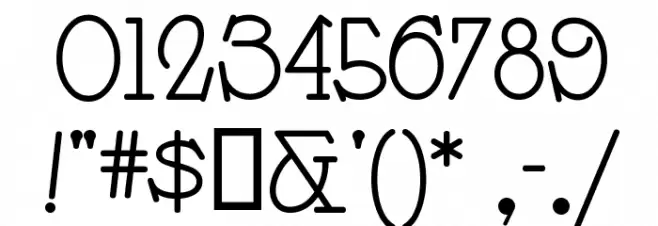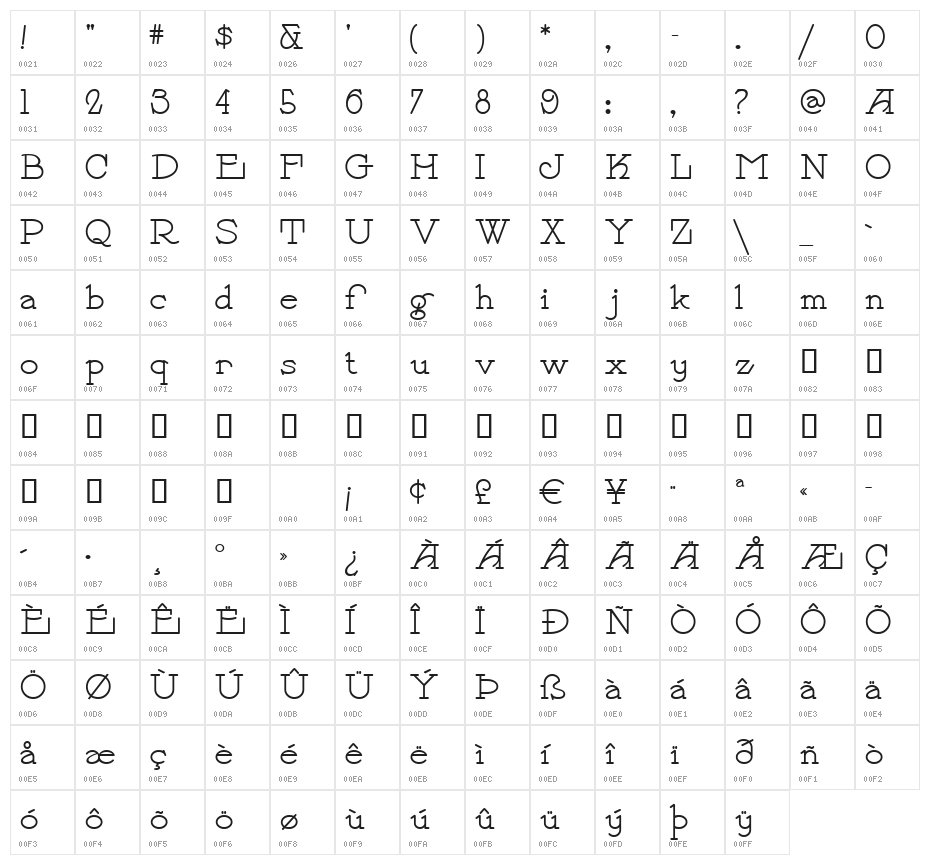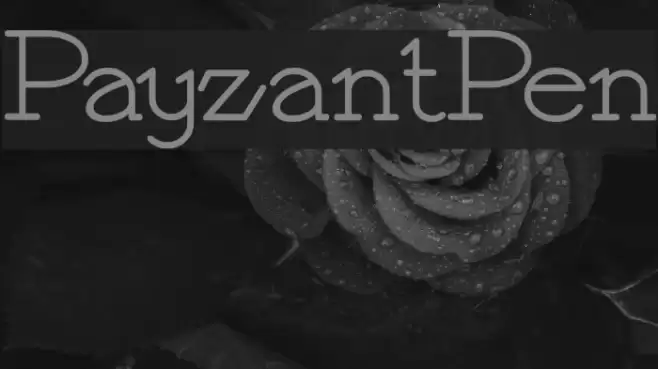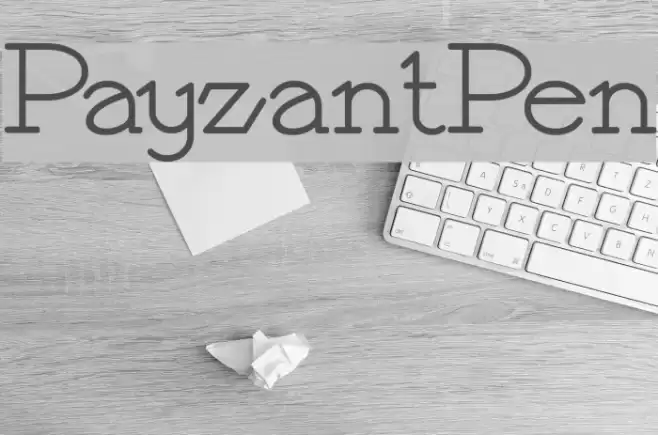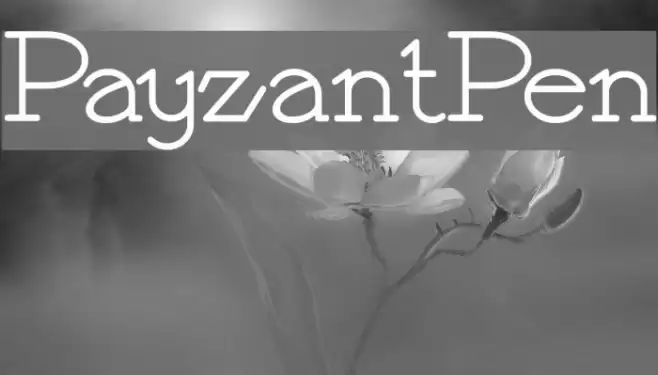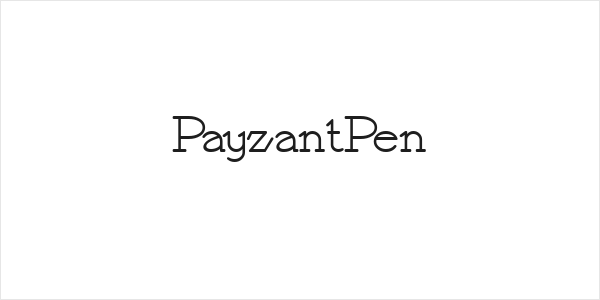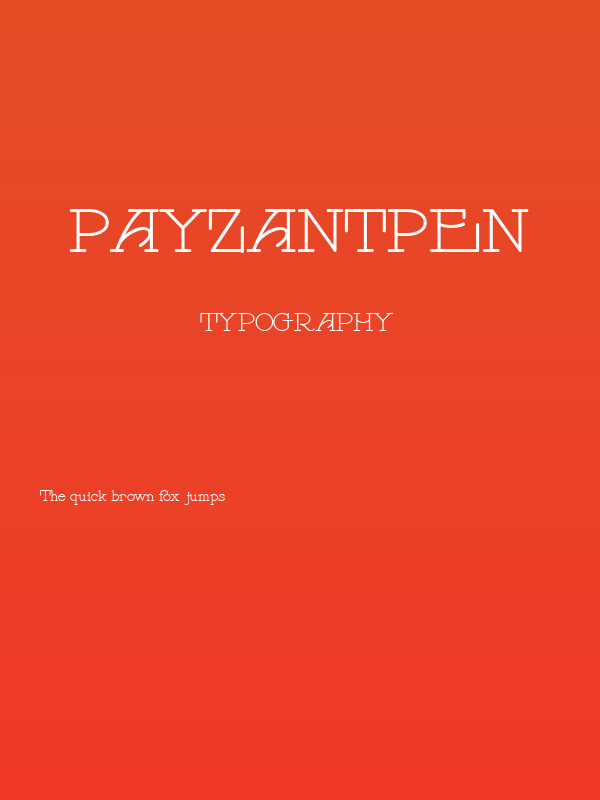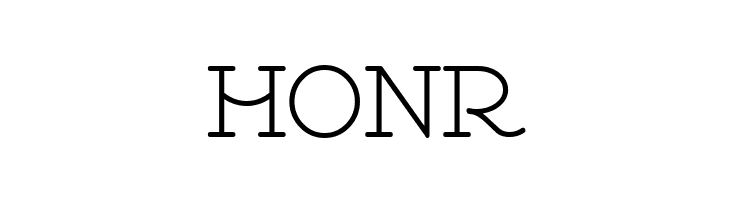
PayzantPen Font
PayzantPen Description
This font features a unique blend of modern and vintage styles, characterized by its elegant and slightly whimsical design. The uppercase letters exhibit a distinct flair with subtle curves and sharp angles, creating a sophisticated yet approachable look. The lowercase letters maintain a consistent style with rounded forms and gentle loops, adding to the font's charm. The numerals are clear and easy to read, with a balanced weight that complements the alphabetic characters. Special characters are thoughtfully designed, maintaining the overall aesthetic while ensuring functionality. This font's versatility makes it suitable for a variety of applications, from formal invitations to creative branding projects.
| Overall Style | Modern Vintage |
| Proposed Projects | Ideal for wedding invitations, branding, logo design, and editorial layouts. |